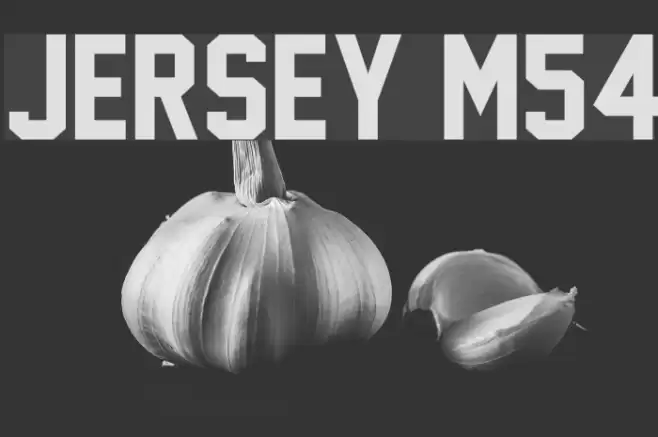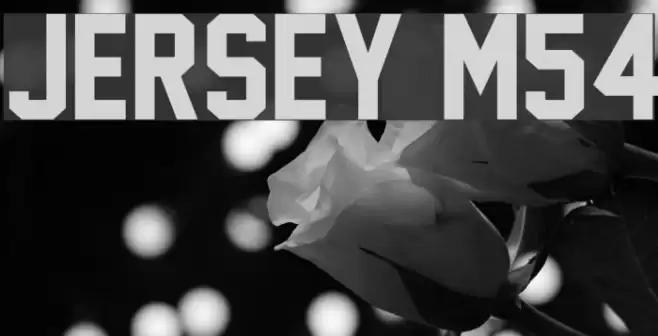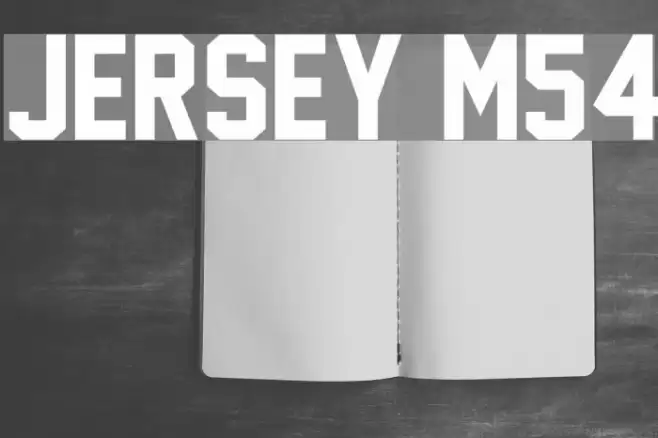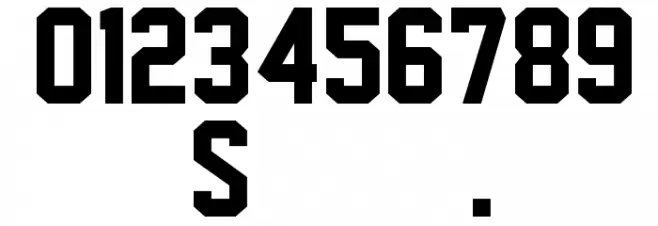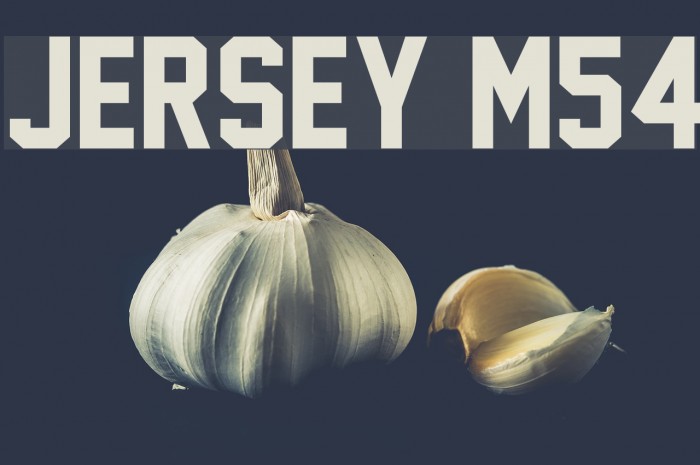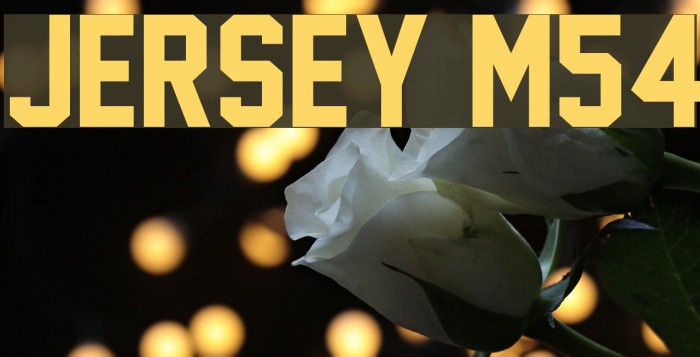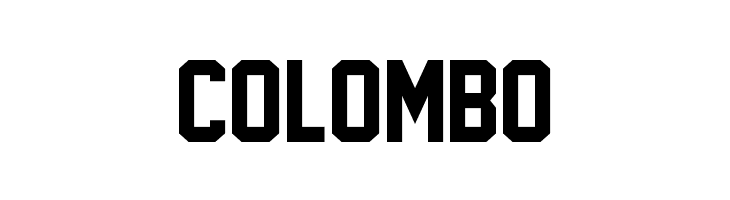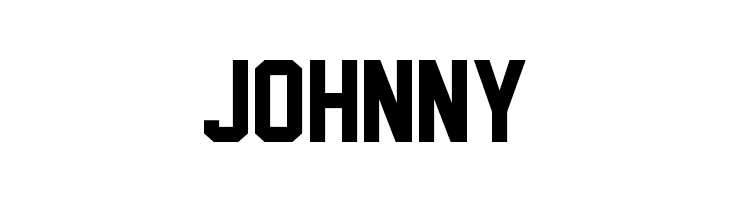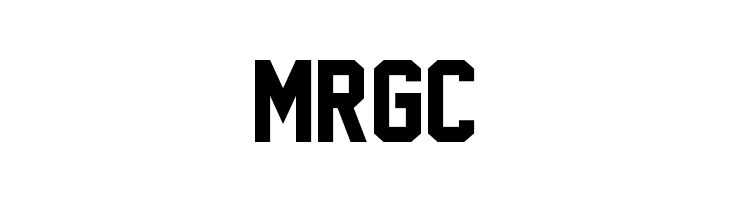
Jersey M54 Font
Jersey M54 Description
This font is characterized by its bold, geometric style with a strong, athletic appearance. The letters are all uppercase, featuring sharp angles and a blocky structure that conveys strength and stability. The numbers and special characters follow the same robust design, making it ideal for sports-related projects. The uniformity in the height and width of the characters ensures a cohesive look, while the minimal contrast in stroke thickness adds to its solid and impactful presence. This font is perfect for creating a dynamic and energetic feel.
A bold, geometric font with a strong, athletic appearance from sports fonts.
- Proposed Projects: Ideal for sports jerseys, team branding, posters, and athletic event materials.